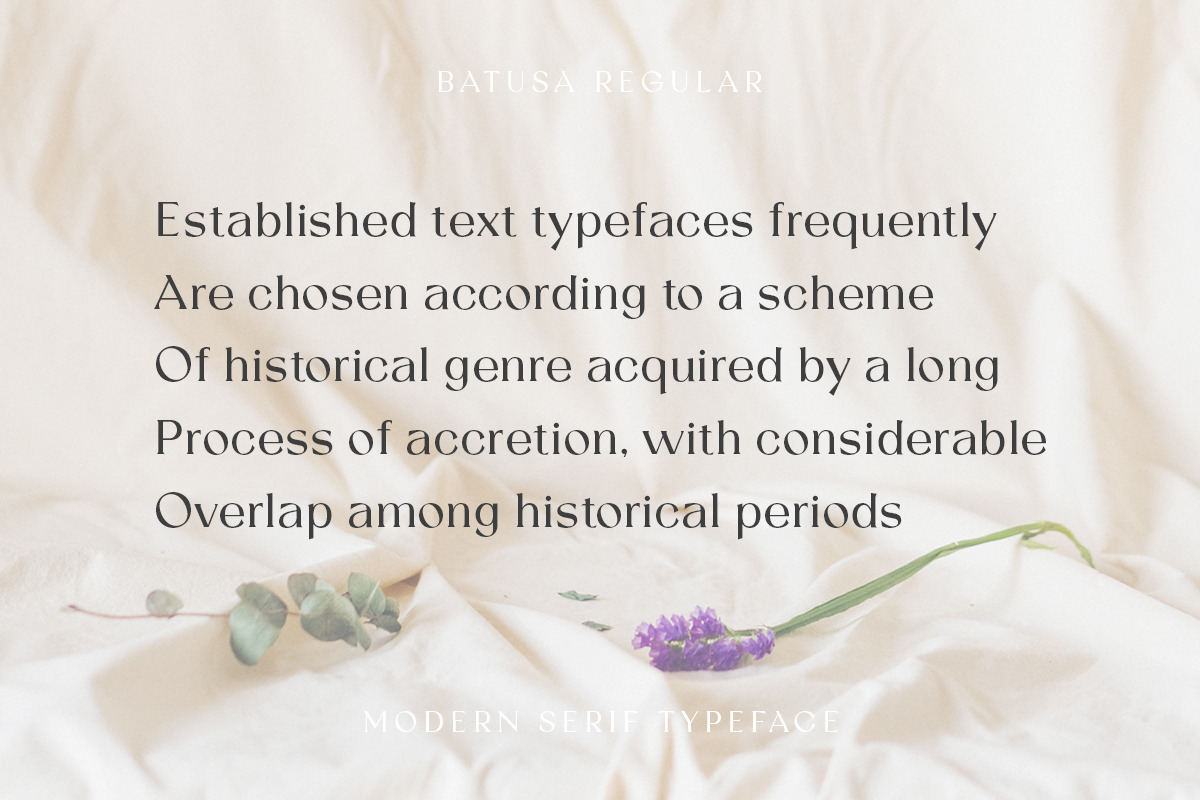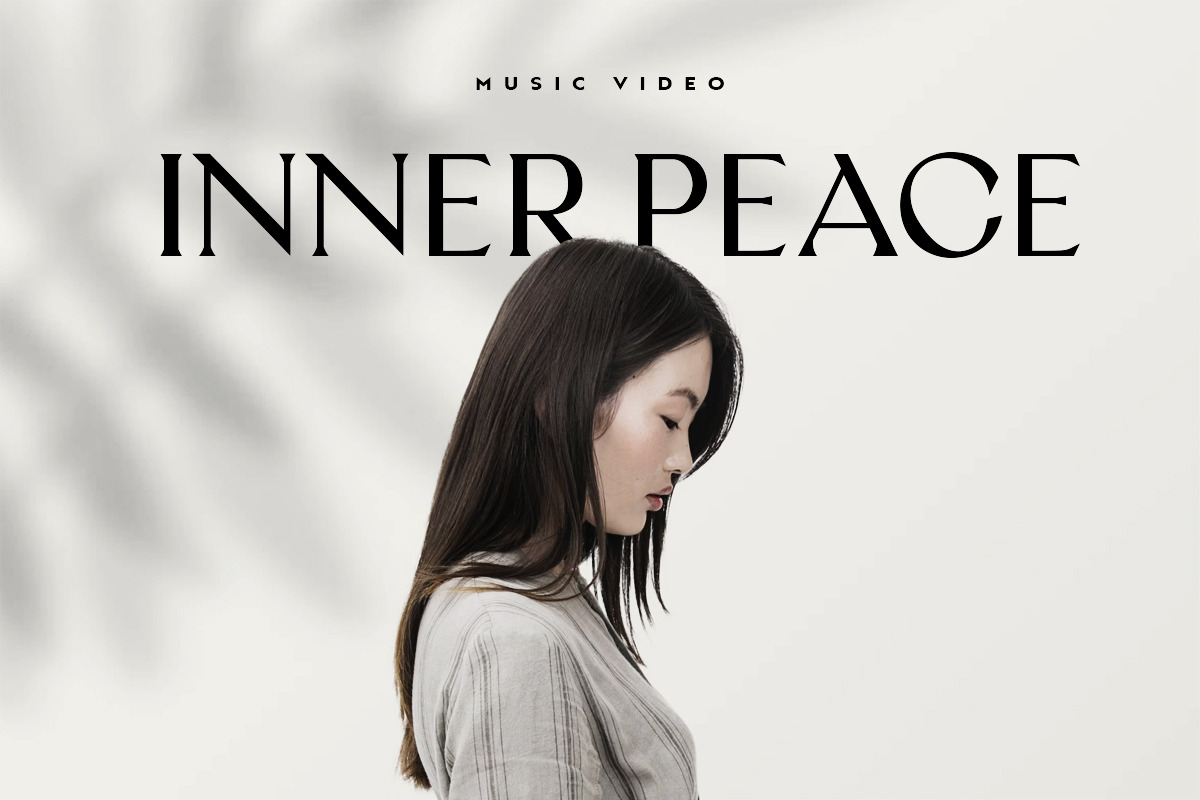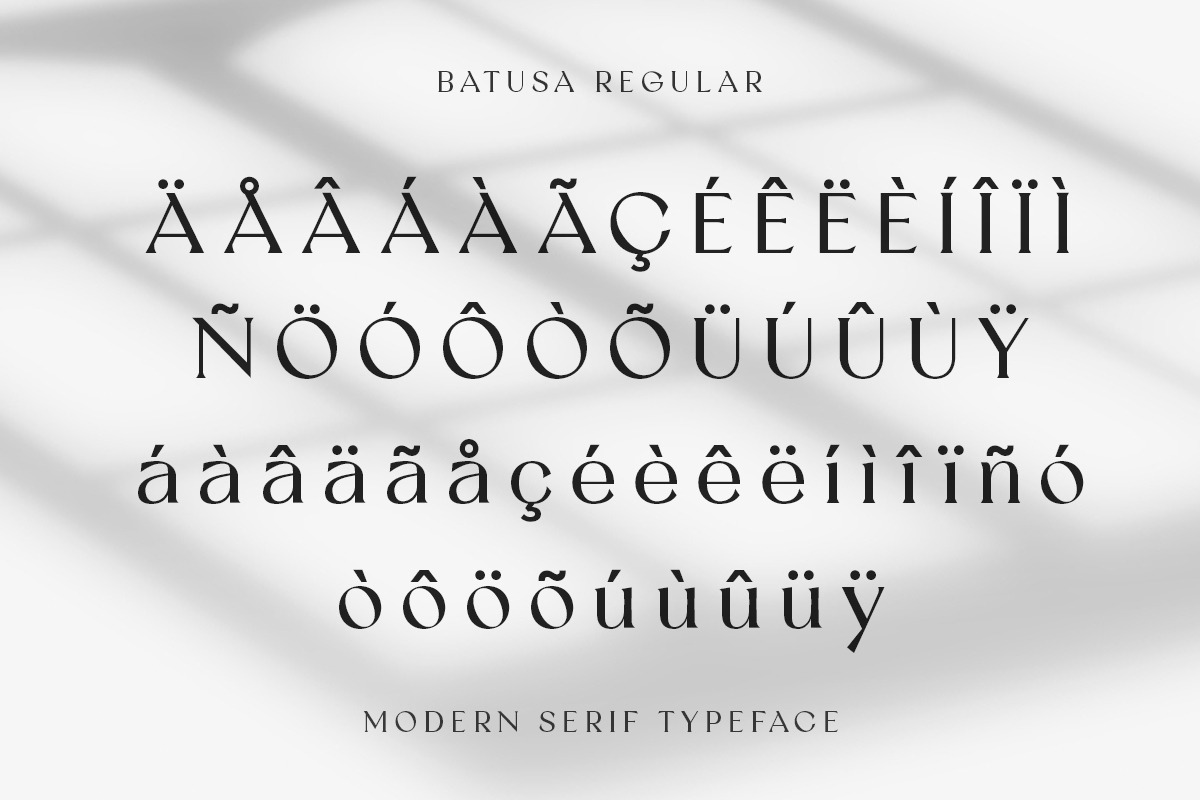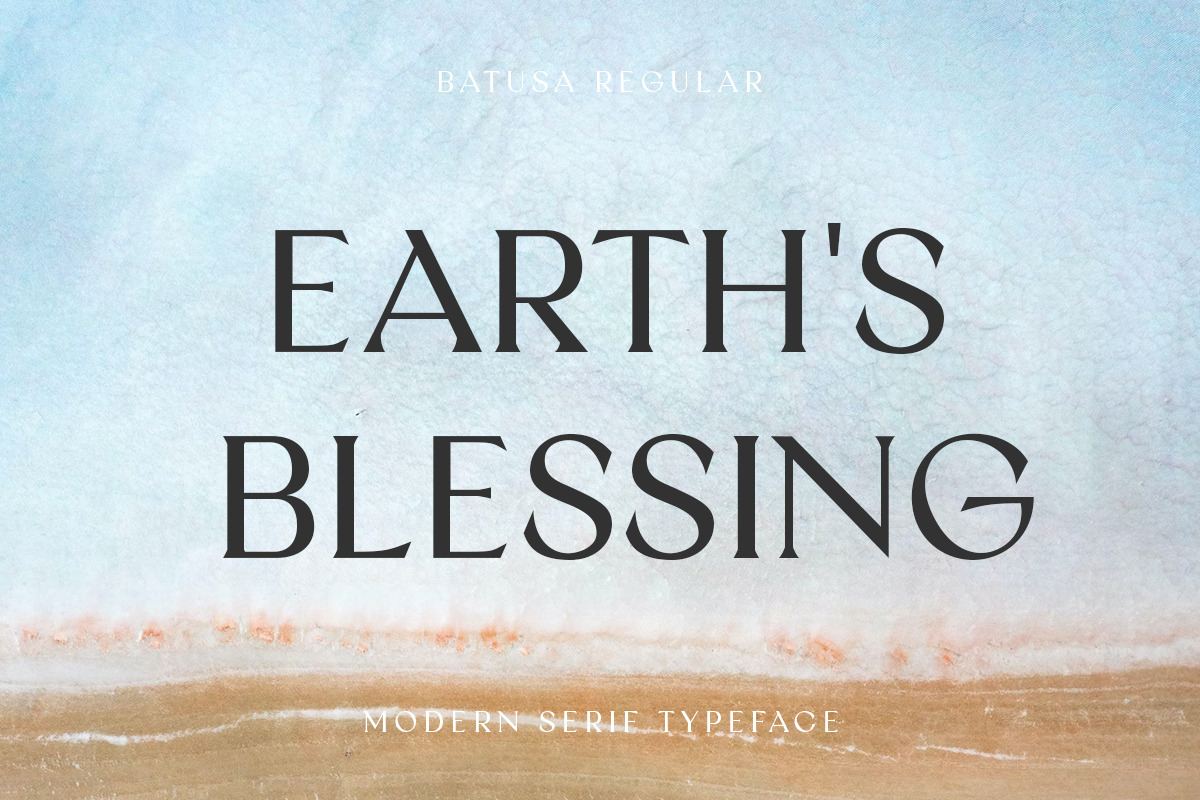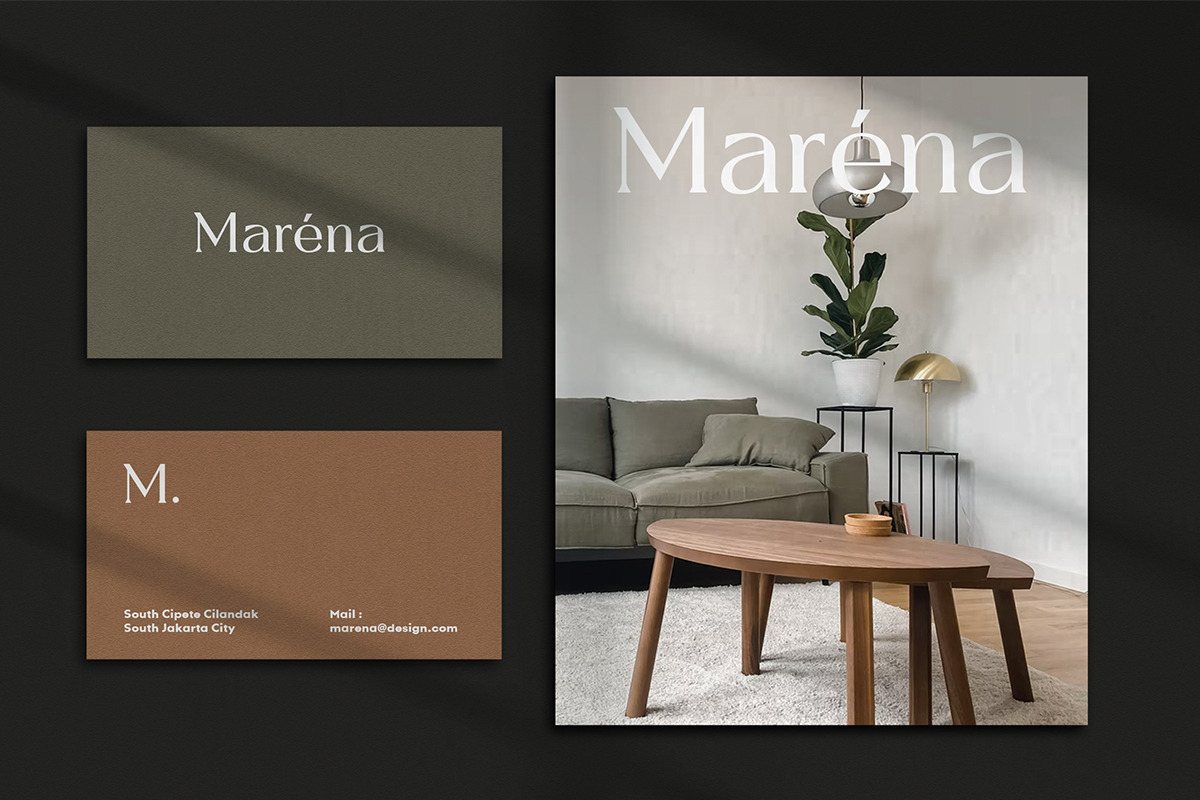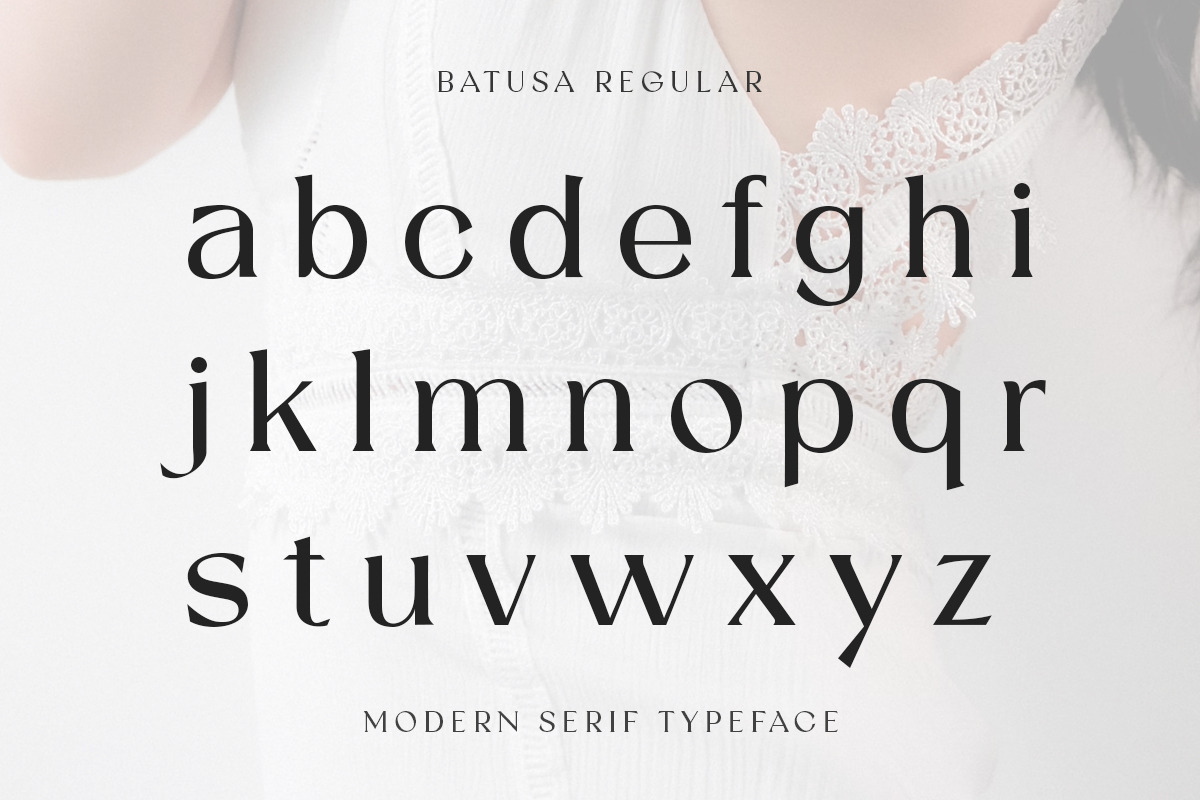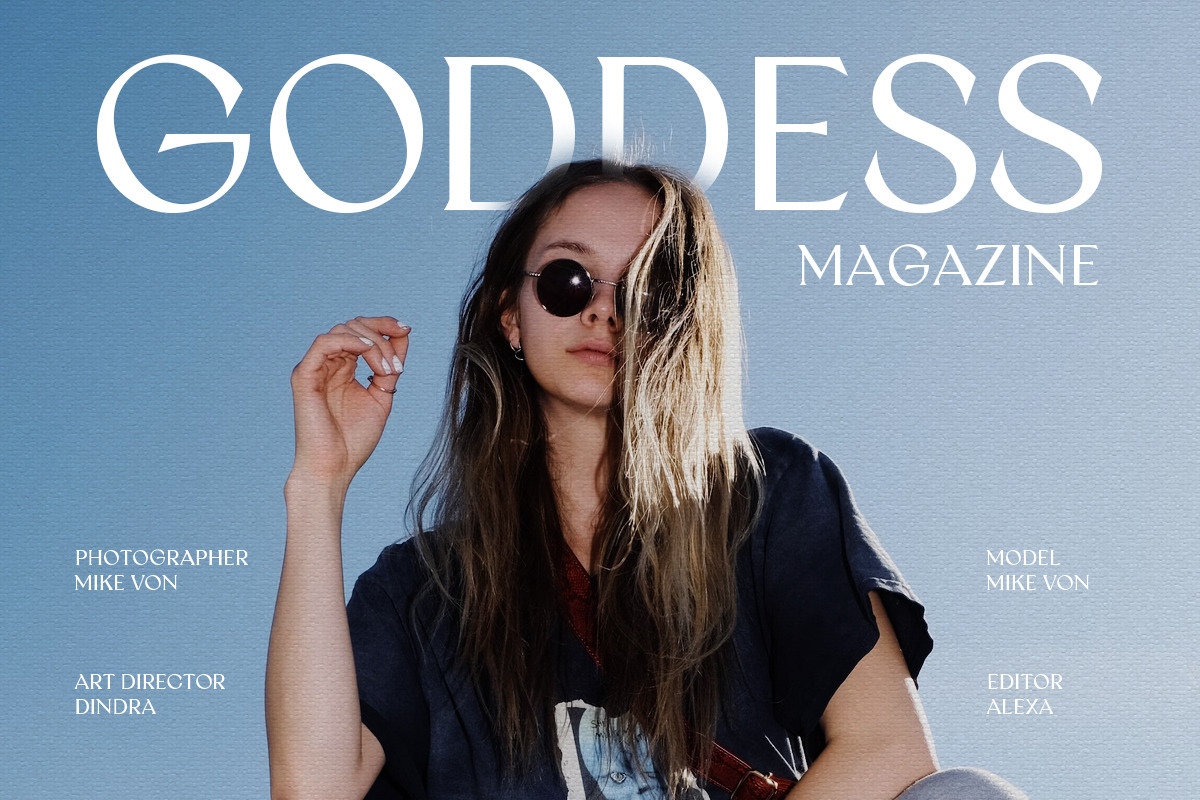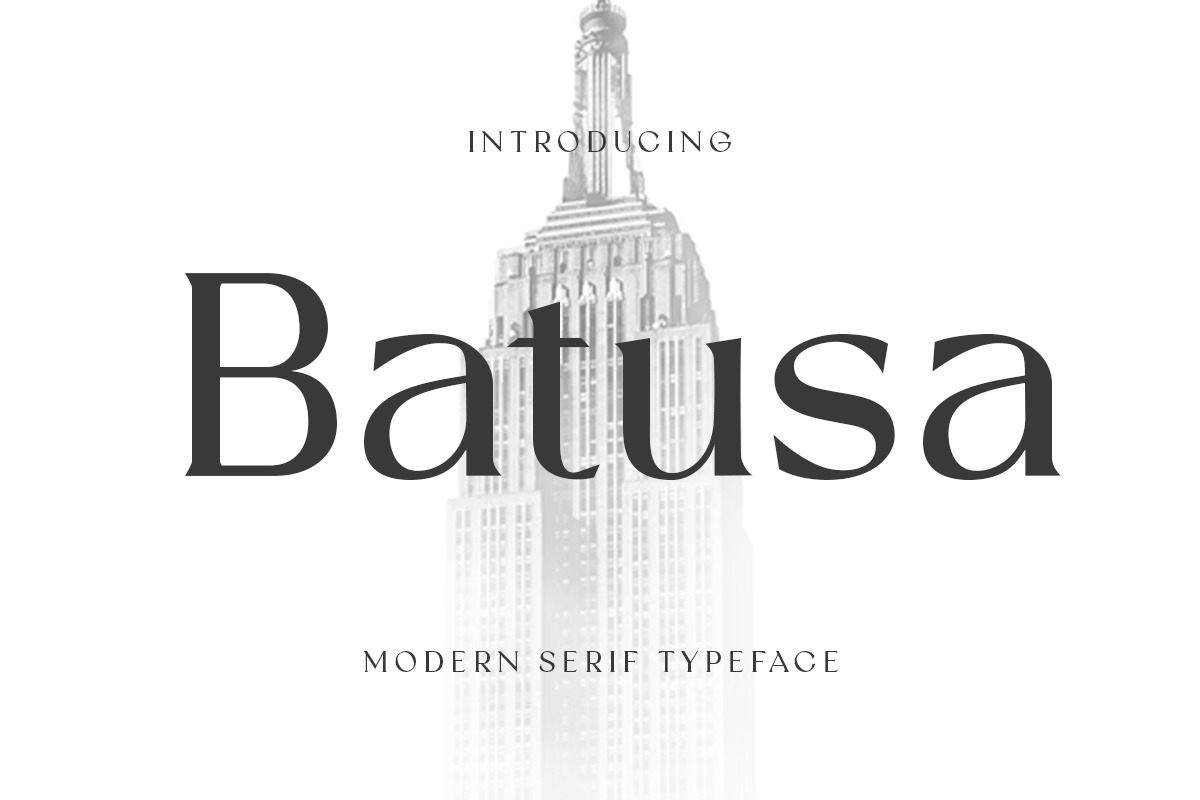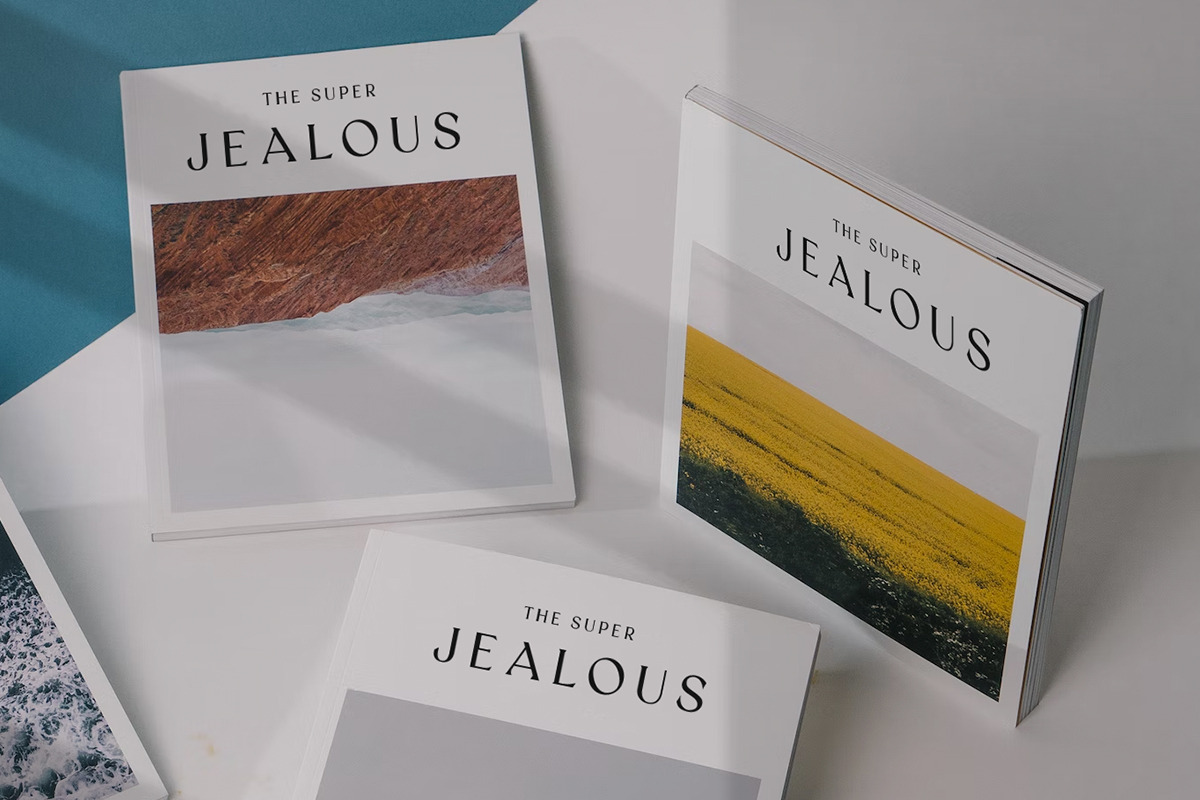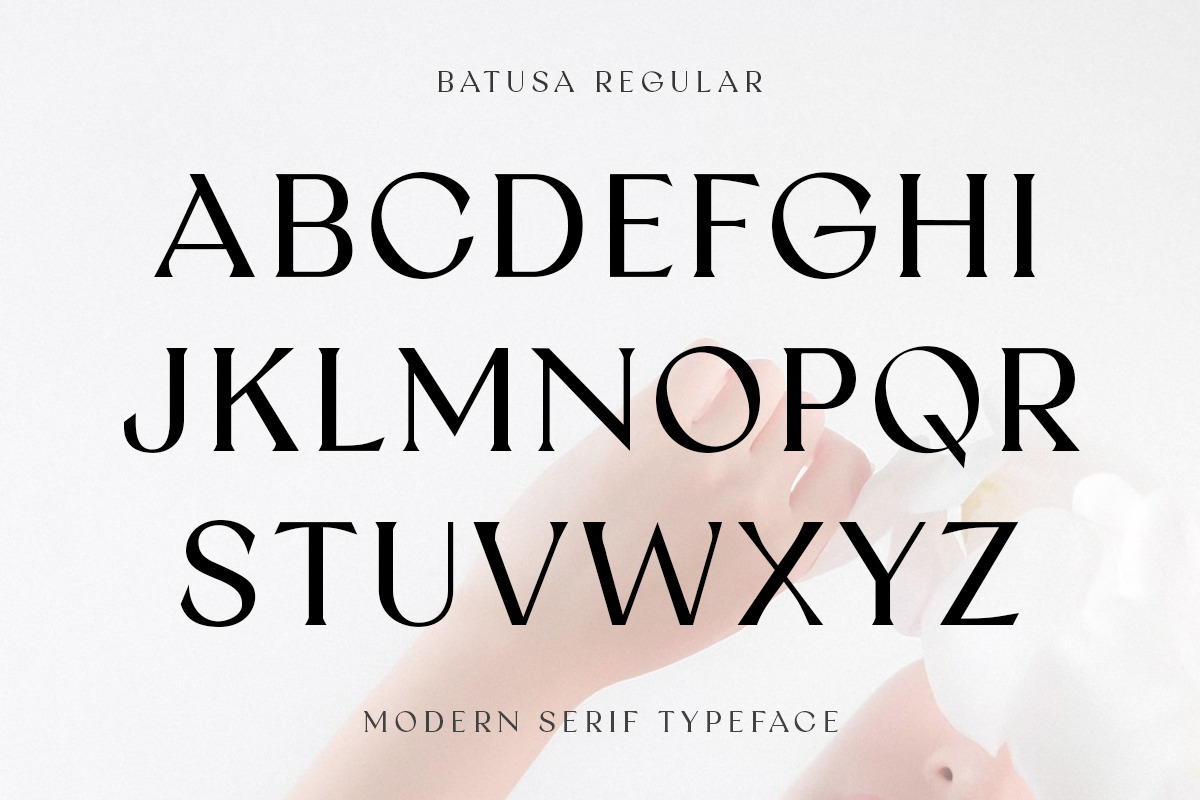
Batusa Modern Serif Fonts
Batusa is a modern serif typeface that has been expressly designed for high-resolution displays and print media. With its elegant appearance and finely balanced proportions, Batusa is perfect for headline text, corporate branding, and other design applications where a touch of refinement is required.
- Well known for its exceptional readability